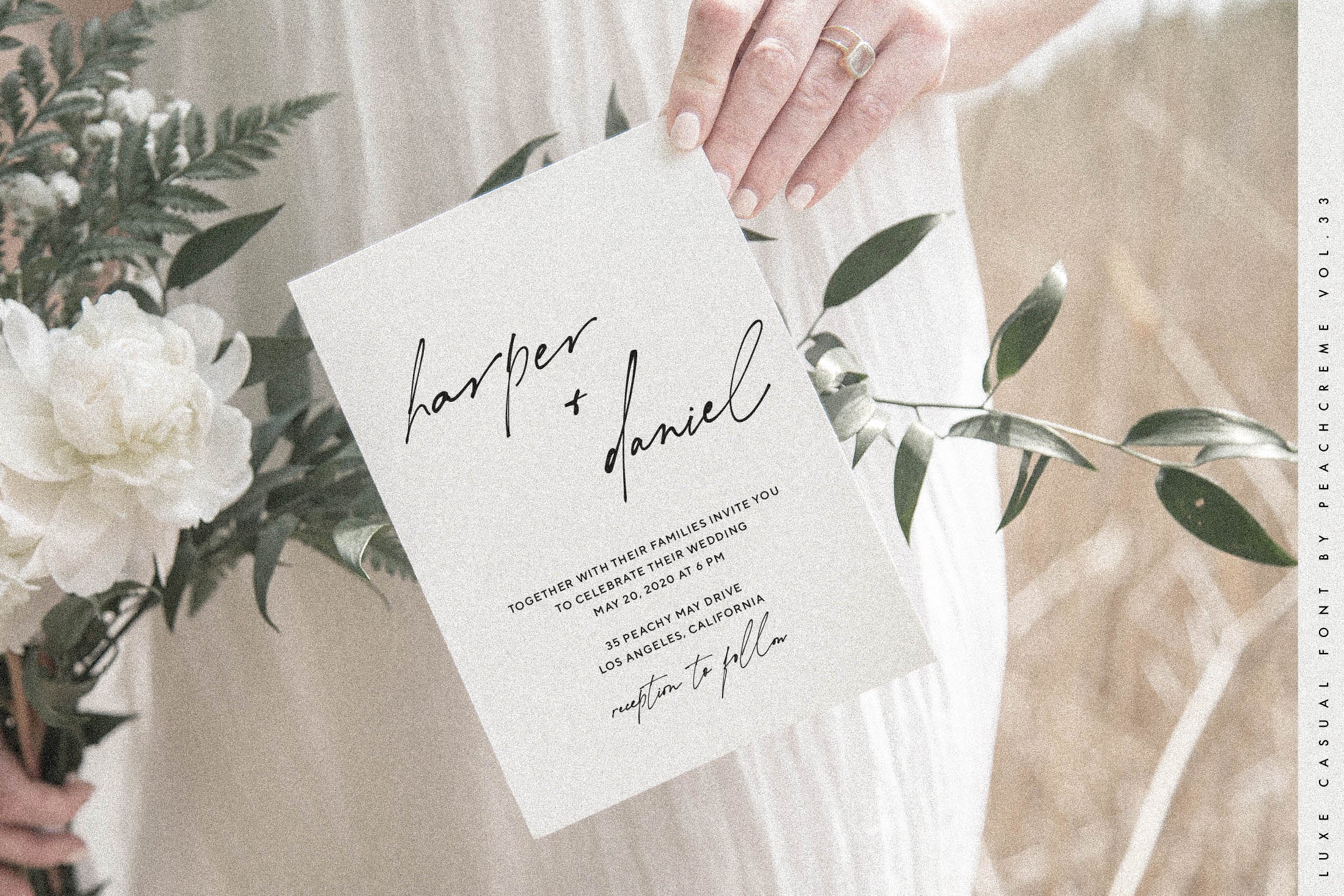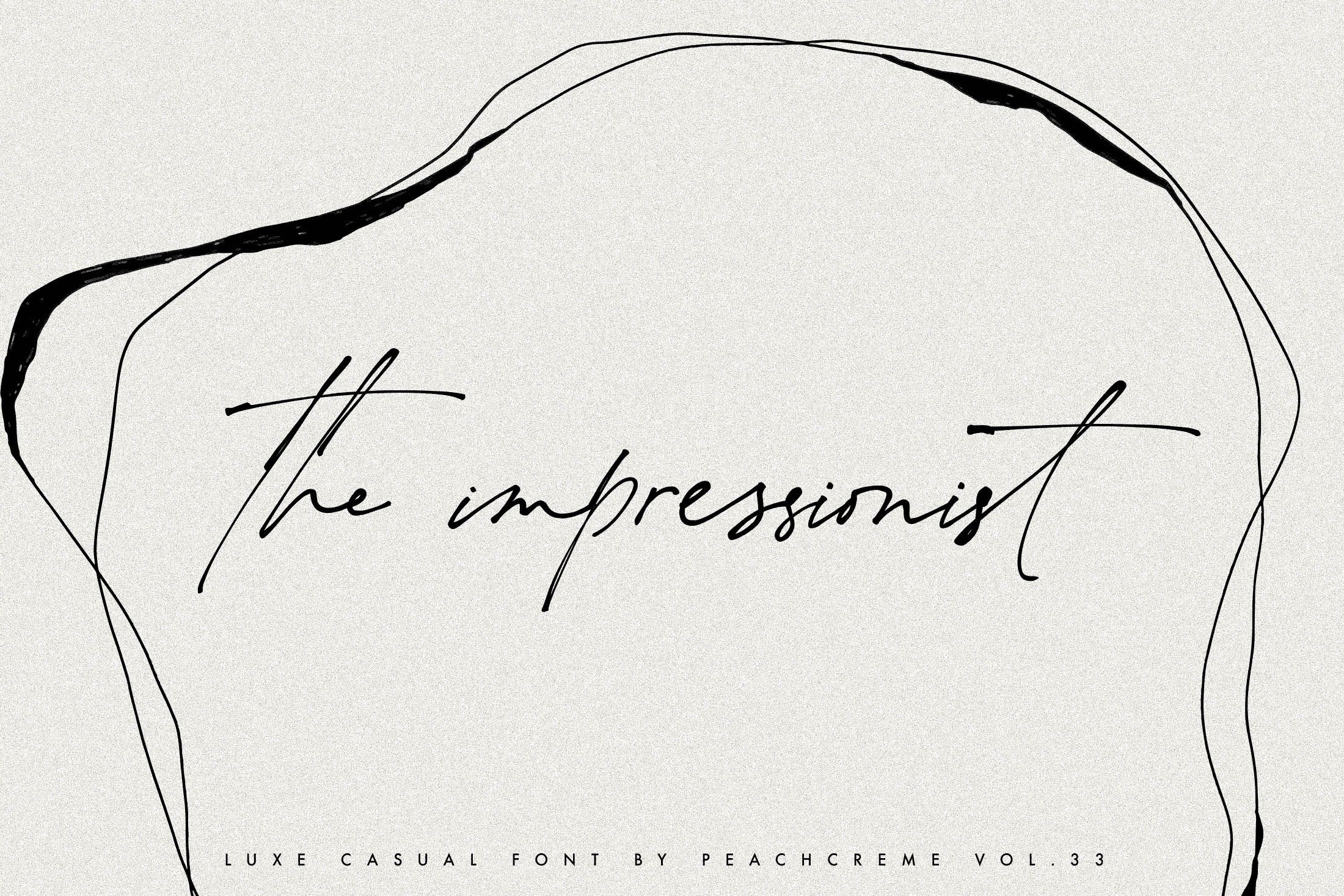
The Impressionist Font - This font is about fleeting vision, a touch of moments. Some letters may be illegible, but their shapes arouses emotions. Discover a world of captivating typography for your creative projects. Unleash your design potential today! Explore impressionist fonts at myfonts.
This font is about fleeting vision, a touch of moments. Discover a world of captivating typography for your creative projects. Explore impressionist fonts at myfonts. Some letters may be illegible, but their shapes arouses emotions. Unleash your design potential today!
Discover a world of captivating typography for your creative projects. Some letters may be illegible, but their shapes arouses emotions. This font is about fleeting vision, a touch of moments. Explore impressionist fonts at myfonts. Unleash your design potential today!
the impressionist Font
This font is about fleeting vision, a touch of moments. Discover a world of captivating typography for your creative projects. Unleash your design potential today! Explore impressionist fonts at myfonts. Some letters may be illegible, but their shapes arouses emotions.
the impressionist Font
Some letters may be illegible, but their shapes arouses emotions. Discover a world of captivating typography for your creative projects. Explore impressionist fonts at myfonts. This font is about fleeting vision, a touch of moments. Unleash your design potential today!
the impressionist Font
Some letters may be illegible, but their shapes arouses emotions. This font is about fleeting vision, a touch of moments. Explore impressionist fonts at myfonts. Discover a world of captivating typography for your creative projects. Unleash your design potential today!
The impressionist // luxe chic font in 2020 (With images) Lettering
Explore impressionist fonts at myfonts. Unleash your design potential today! Discover a world of captivating typography for your creative projects. Some letters may be illegible, but their shapes arouses emotions. This font is about fleeting vision, a touch of moments.
the impressionist Font
Discover a world of captivating typography for your creative projects. This font is about fleeting vision, a touch of moments. Some letters may be illegible, but their shapes arouses emotions. Explore impressionist fonts at myfonts. Unleash your design potential today!
the impressionist Font
This font is about fleeting vision, a touch of moments. Unleash your design potential today! Some letters may be illegible, but their shapes arouses emotions. Discover a world of captivating typography for your creative projects. Explore impressionist fonts at myfonts.
Discover a world of captivating typography for your creative projects. This font is about fleeting vision, a touch of moments. Unleash your design potential today! Explore impressionist fonts at myfonts. Some letters may be illegible, but their shapes arouses emotions.
the impressionist Font
This font is about fleeting vision, a touch of moments. Some letters may be illegible, but their shapes arouses emotions. Unleash your design potential today! Discover a world of captivating typography for your creative projects. Explore impressionist fonts at myfonts.
Unleash your design potential today! Explore impressionist fonts at myfonts. This font is about fleeting vision, a touch of moments. Discover a world of captivating typography for your creative projects. Some letters may be illegible, but their shapes arouses emotions.
Some Letters May Be Illegible, But Their Shapes Arouses Emotions.
Discover a world of captivating typography for your creative projects. Unleash your design potential today! Explore impressionist fonts at myfonts. This font is about fleeting vision, a touch of moments.